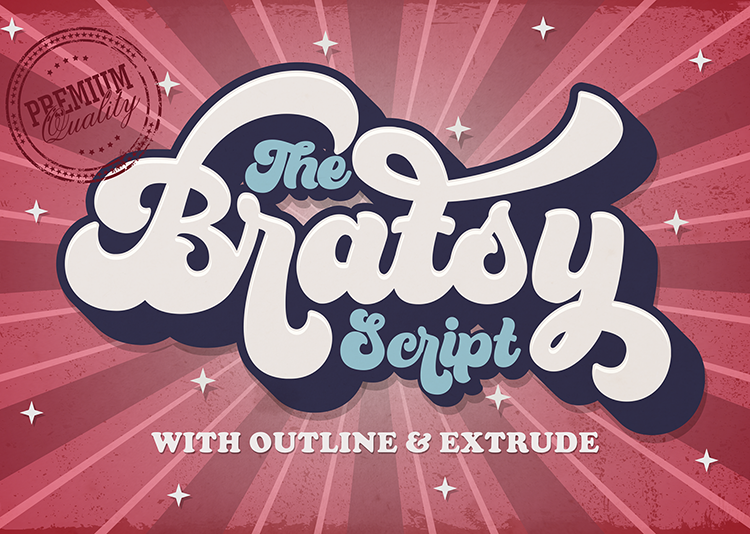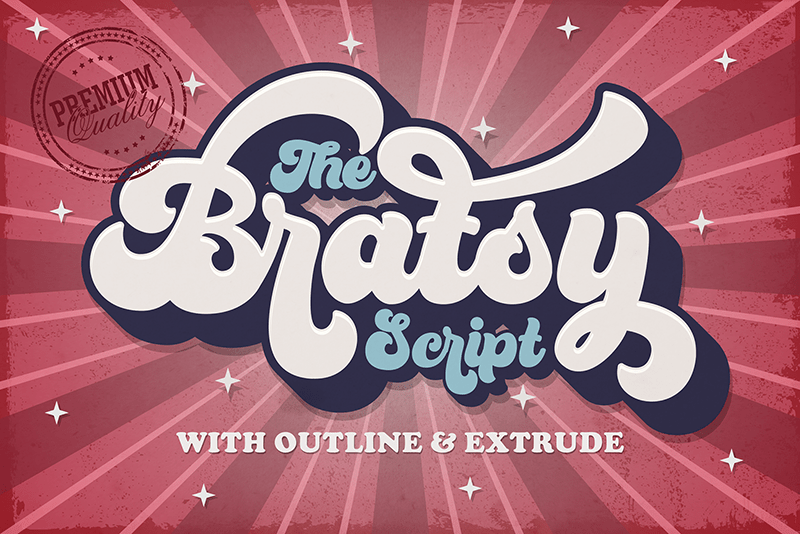
Bratsy Script Font
The Bratsy Script is a bold and layered script font, drawing inspiration from a Retro aesthetic. Combining hand lettering with dramatic movement, this font offers a dynamic and eye-catching design. Its outline and extrude features give it a unique look, making it ideal for projects that require a bold retro vibe or a modern twist.
This versatile font is perfect for various creative applications, including logos, handwritten quotes, product packaging, headers, and posters. Its strong, distinctive style ensures that it will stand out in any design, whether used in print or digital media.
In addition to its use in logos and product branding, The Bratsy Script works beautifully for greeting cards, merchandise, and social media graphics. It adds an energetic, playful touch that enhances the visual appeal of any project.